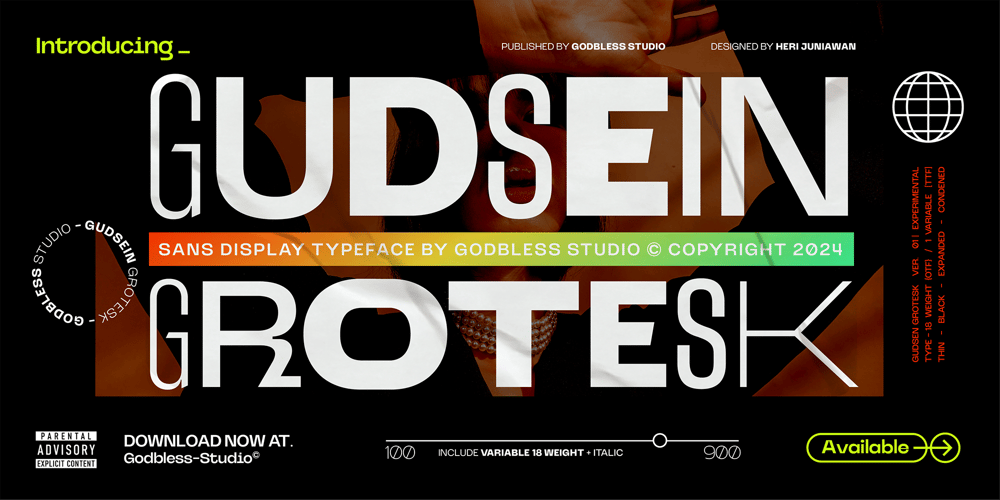
Gudsein Grotesk Font Family was designed by Heri Juniawan and published by Godbless Studio. Gudsein Grotesk contains 18 styles and family package options. Inspired by something experimental and modern but still has a strong and elegant characteristic. Gudsein Grotesk is a experimental sans serif font well-suited for display use; its orthogonal terminals and short ascenders and descenders make it ideal for block of texts. By mixing different weights, you can have a wide range of design options—short text, isolated words, logos, titles, branding design, posters, etc.The Gudsein Grotesk family comes in 18 weights with italic from a thin and condensed thin to an expanded and Black. Its character set supports over 200 different languages. Equipped with various additional unique and modern alternative characters, it gives you a very strong composition of identity and personality. This font really deserves to be on your desktop*